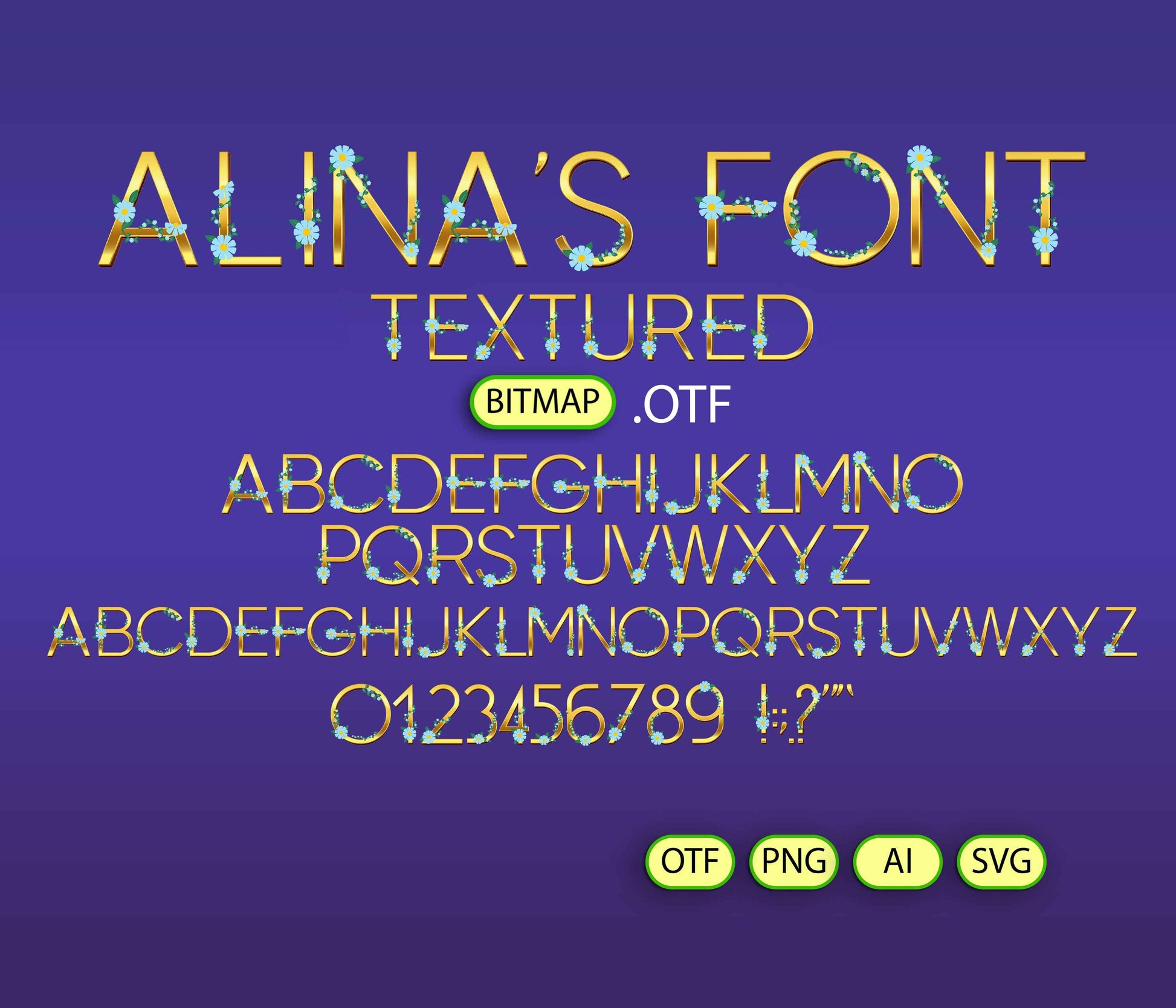
Spring Gold Flower Font Textured
The Blossoming Beauty of Spring Flower
Immerse yourself in the refreshing and vibrant essence of the season with our Spring Flower font, a typeface inspired by the rejuvenating spirit of spring and the natural elegance of blooming flowers. This font encapsulates the joy and beauty of springtime, with each character reflecting the delicate and graceful forms of flowers in bloom. Perfect for projects that aim to evoke the freshness, color, and vitality of spring, the Spring Flower font brings a touch of nature's charm to your creative endeavors.
What font is the Spring Flower font?
Picture a typeface that embodies the gentle, flourishing, and picturesque qualities of a spring garden. Our Spring Flower font is meticulously designed to mirror the aesthetics of springtime flora, focusing on fluid, organic letterforms that convey a sense of growth and blooming. It includes an extensive character set, featuring alphabets, numbers, and special symbols, providing a versatile toolkit for a wide range of design projects, from seasonal marketing materials to floral-themed artistic creations.
In summary, the Spring Flower font is more than just a typeface; it's an ode to the rejuvenating and beautiful season of spring. It invites users to bring the essence of spring's growth and vitality into their projects, whether for seasonal celebrations, marketing efforts, or creative design endeavors. Let this font inspire you to create designs that capture not only the eye but also the blossoming spirit of springtime.